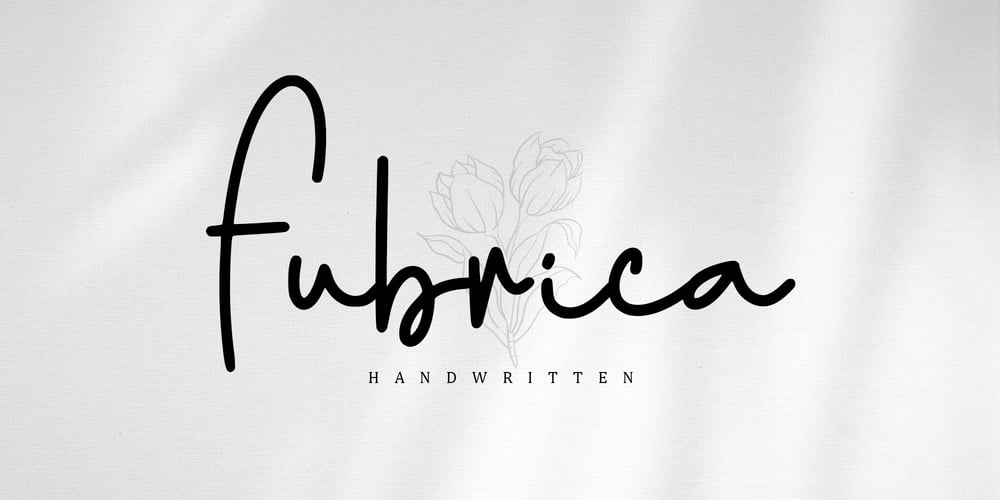
Fubrica Font Family was designed by Alif Ryan Zulfikar and published by Sakha Design. Fubrica contains 2 styles and family package options. Fubrica is a whimsical and clean handwritten font. It can easily be matched to an incredibly large set of projects, so add it to your creative ideas and notice how it makes them stand out!